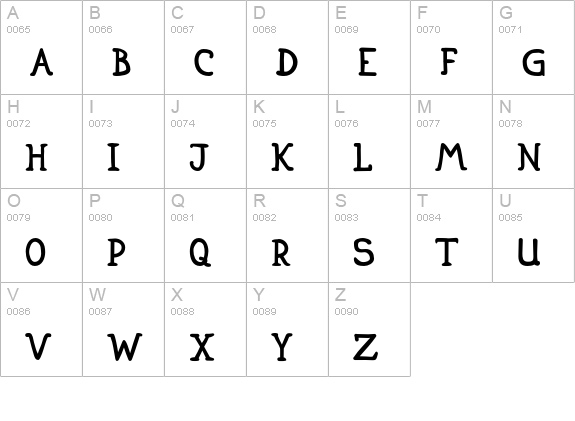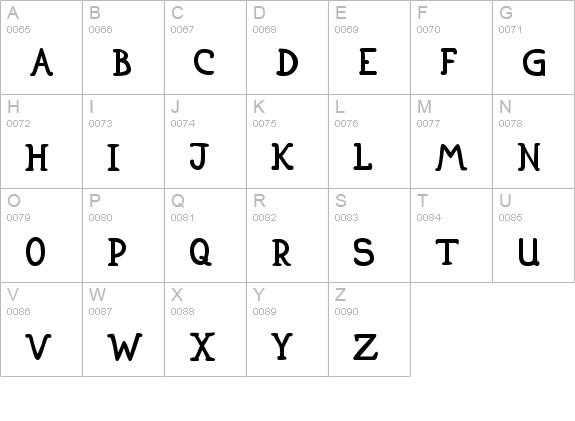
P22Escher-Hand Font Details
The P22Escher-Hand font is a stunning typographic masterpiece that pays homage to the intricate and mind-bending artwork of M.C. Escher. With its carefully crafted lines and intricate details, this font captures the essence of Escher's surreal and optical illusion-filled world. Every letter is meticulously designed to create a harmonious blend of geometry and imagination, just like Escher's iconic works. The flowing curves and sharp angles in P22Escher-Hand evoke a sense of movement and depth, making it a perfect choice for any design project that seeks to captivate and mesmerize. One of the most remarkable aspects of P22Escher-Hand is that it is freely available to download at FontsMarket.com. This means that designers, artists, and enthusiasts can effortlessly access this incredible font and incorporate it into their creative endeavors. Whether you're designing a poster, creating a logo, or crafting a unique piece of artwork, P22Escher-Hand will undoubtedly add a touch of surreal beauty to your project. The versatility of this font is truly exceptional. Its bold and distinctive appearance makes it a great choice for headlines and titles, while its legibility and clarity ensure that it remains readable even at smaller sizes. P22Escher-Hand effortlessly blends elegance with eccentricity, making it a versatile and dynamic font that is sure to make a lasting impression. Embrace the artistic genius of M.C. Escher and unlock a world of creativity with the P22Escher-Hand font. Download it for free at FontsMarket.com and embark on a journey into the realm of optical illusions and visual enchantment. Let P22Escher-Hand be your creative companion and watch as your designs come to life with a touch of Escher's magic.